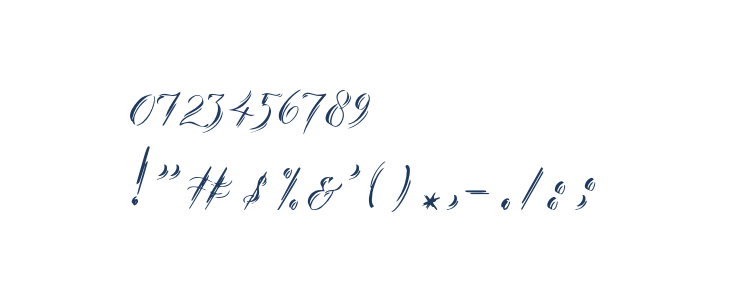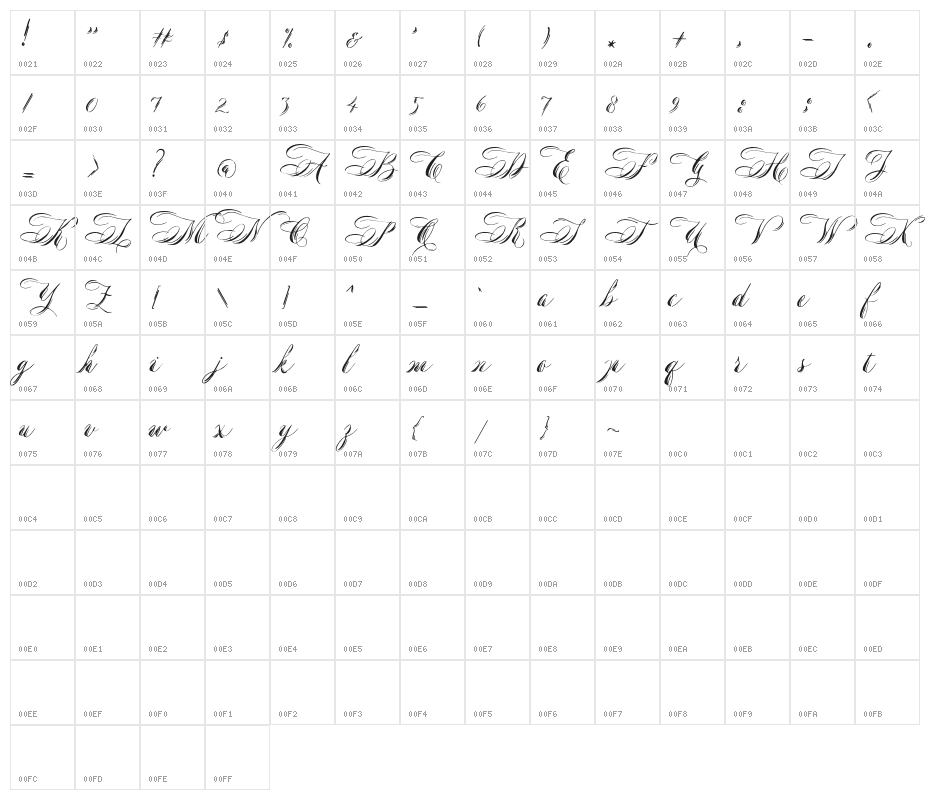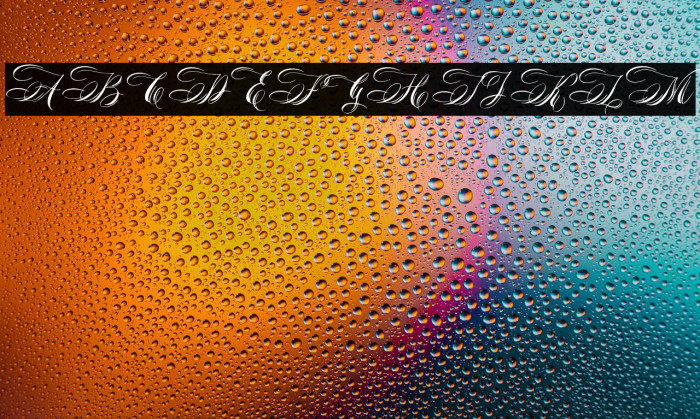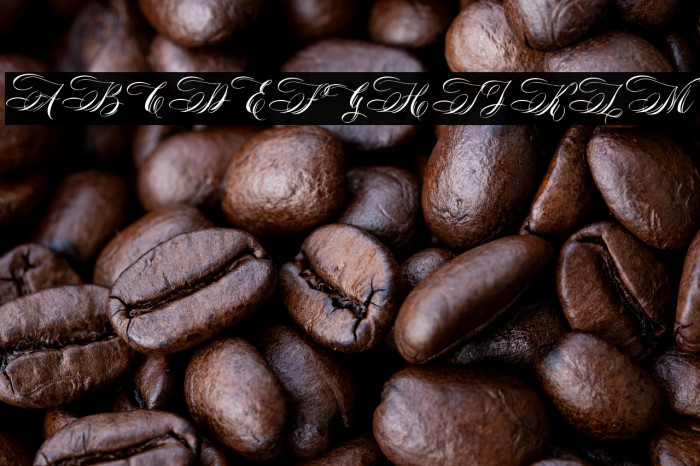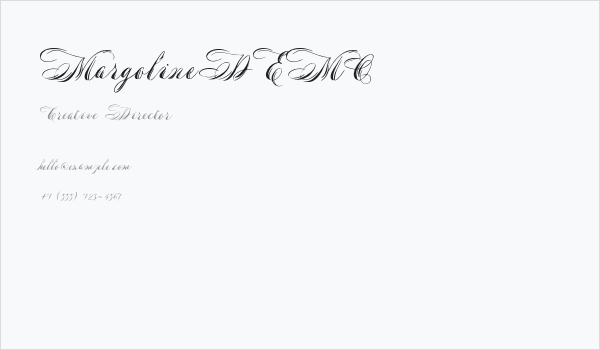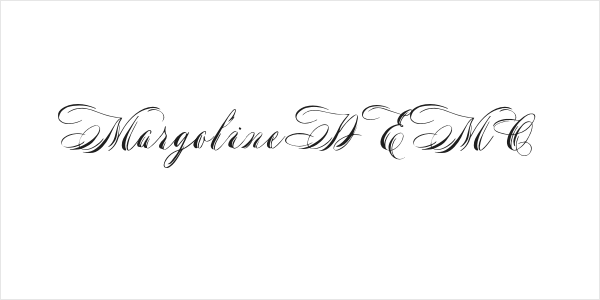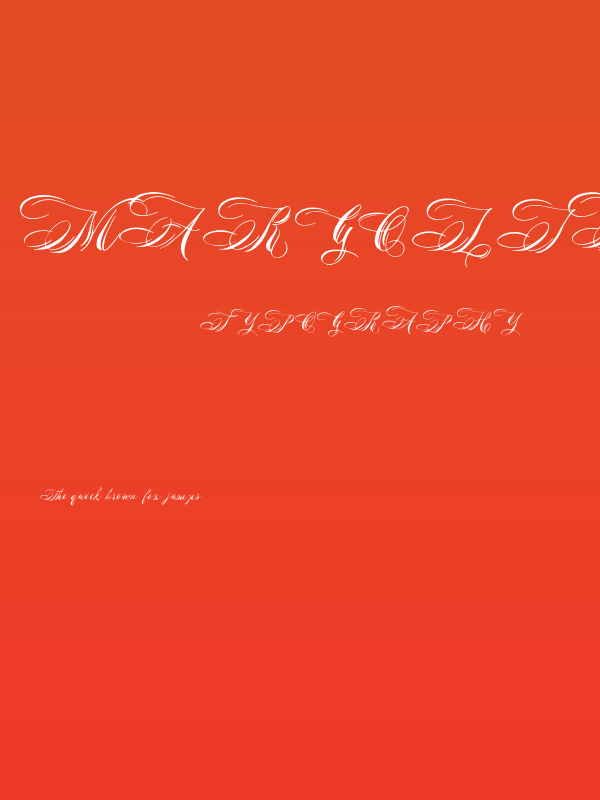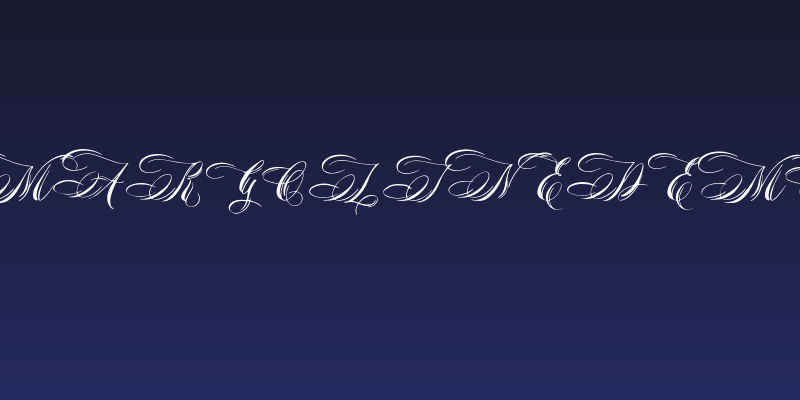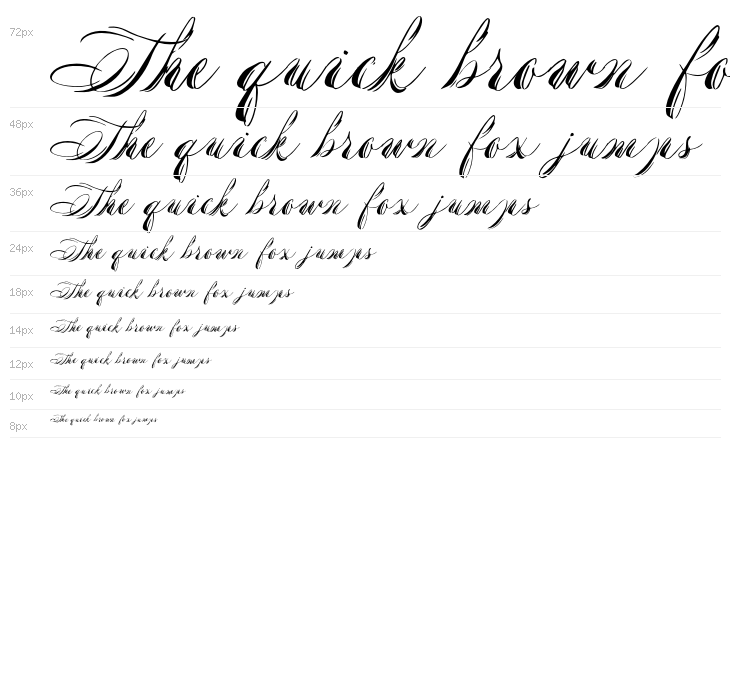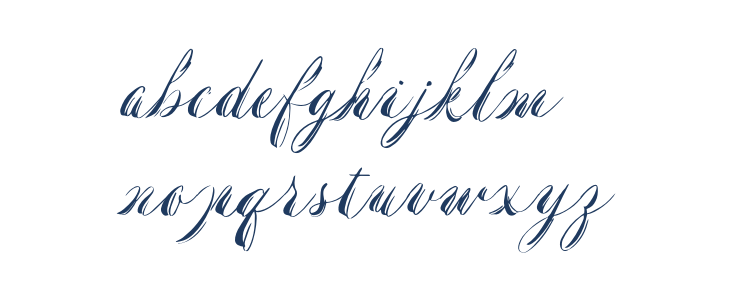
MargolineDEMO Font
MargolineDEMO Description
This elegant script font features a flowing, cursive style with intricate swashes and flourishes. The letters are connected, creating a seamless and sophisticated appearance. The uppercase letters are particularly ornate, with elaborate loops and extensions, while the lowercase letters maintain a graceful and fluid form. The numerals and special characters are designed to match the overall aesthetic, adding a touch of refinement. This font exudes a sense of luxury and artistry, making it ideal for formal and decorative applications.